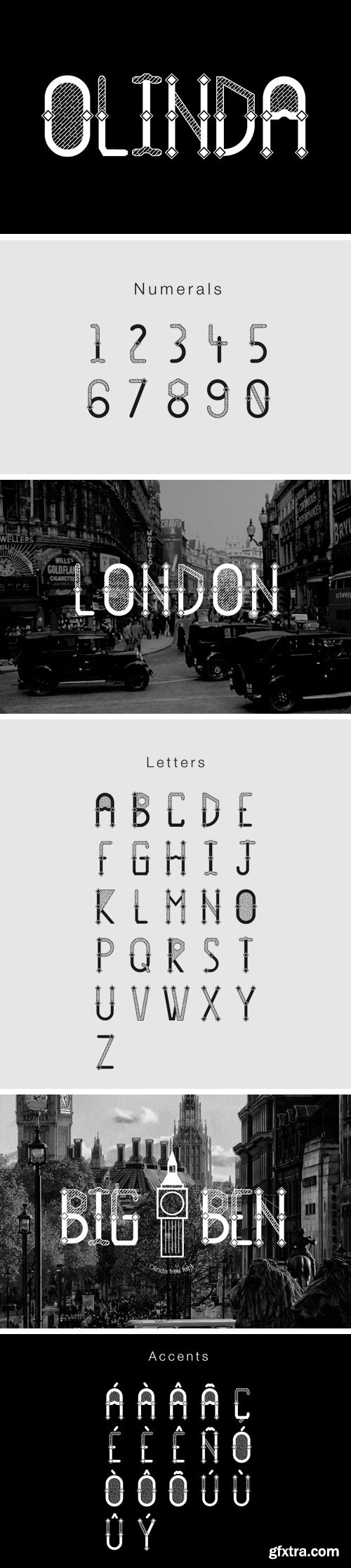
This is Olinda Font by Luis Paulo which is created by the upcoming freelance designer. The font is inspired by the architecture of the Victorian era in the olden days of England.